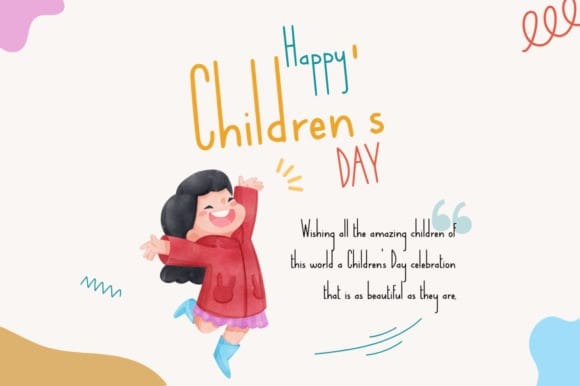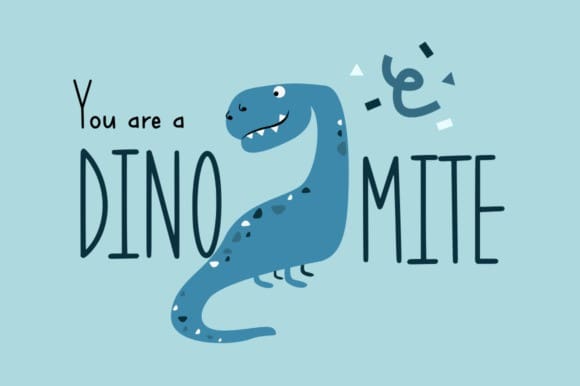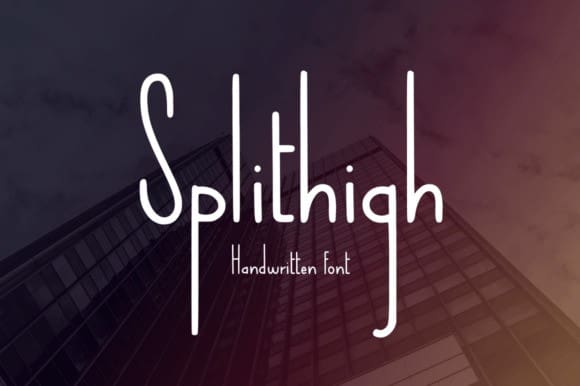
Splithigh Font
Splithigh Font, a tall, monoline handwritten font that adds a unique flair to your designs. With its slender letterforms and consistent strokes, this font embodies a modern yet elegant aesthetic. Perfect for projects that require a sleek and sophisticated touch, such as branding, posters, or headlines. “Splithigh” elevates your designs with its tall stature and effortless charm, making a statement with every stroke.